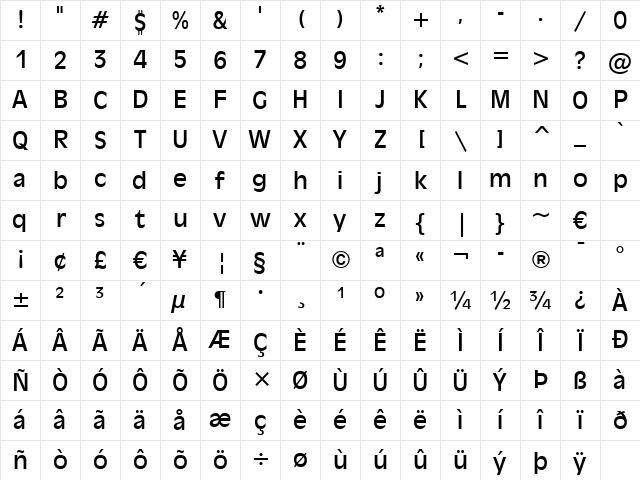
Complete Incised901 BT Roman glyph index. Displaying only characters natively supported by Incised901 BT Roman font.
Incised901 BT is a composed and adaptable typeface that performs quietly and consistently across a wide range of design contexts.